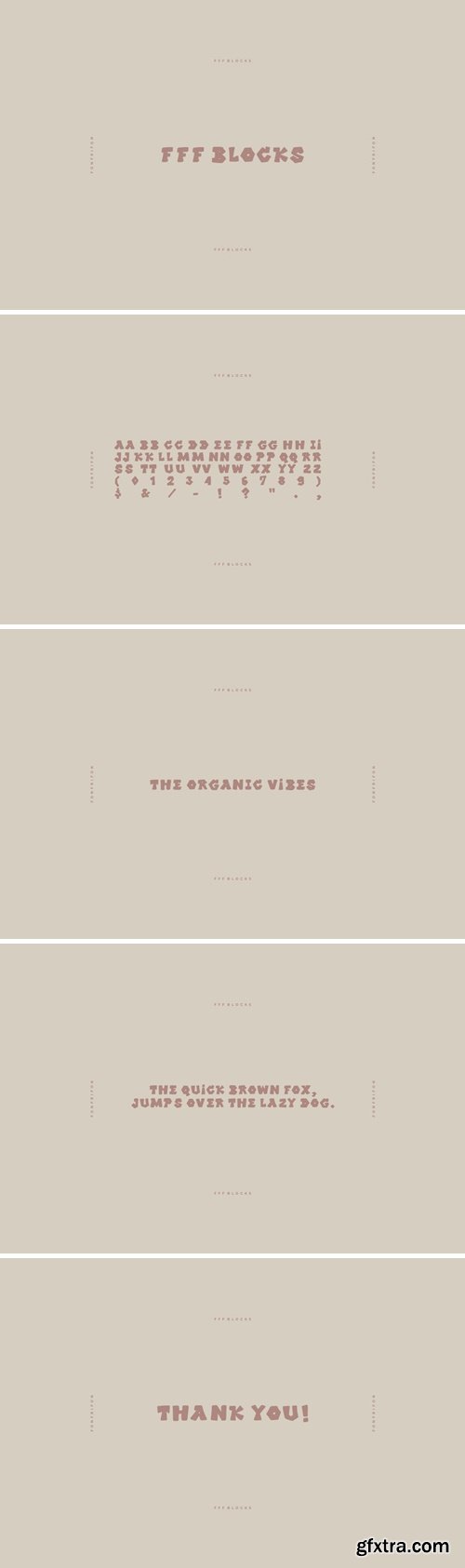
FFF Blocks Font
Introducing, FFF Blocks is an organic handwriting font suitable for your design project needs, such as; social media posts, quotes, overlays on images, tagline logos, posters, print needs, website banners, and more.